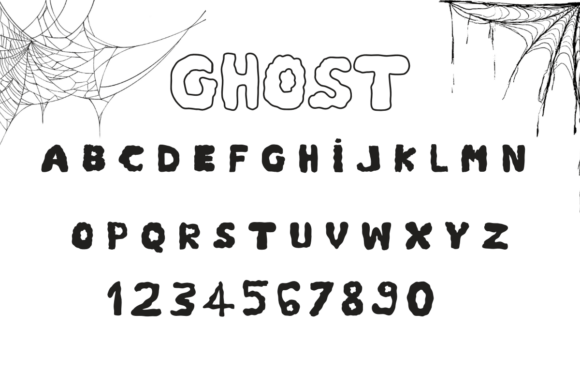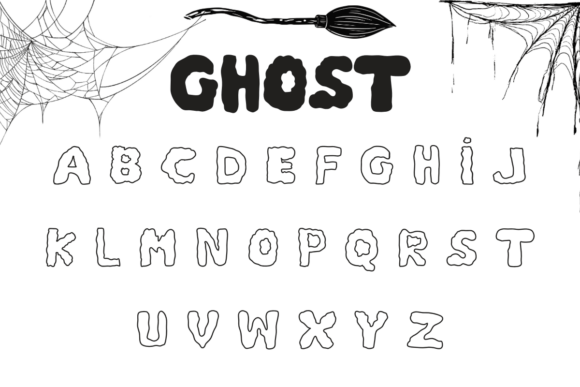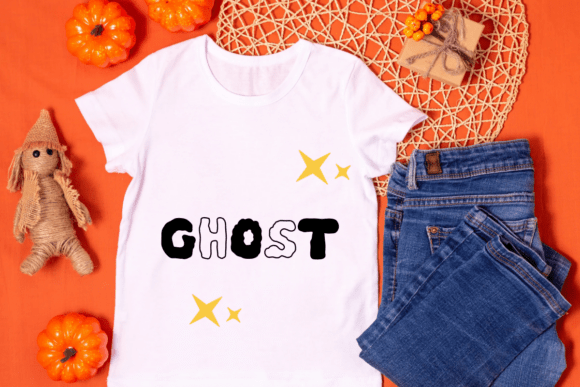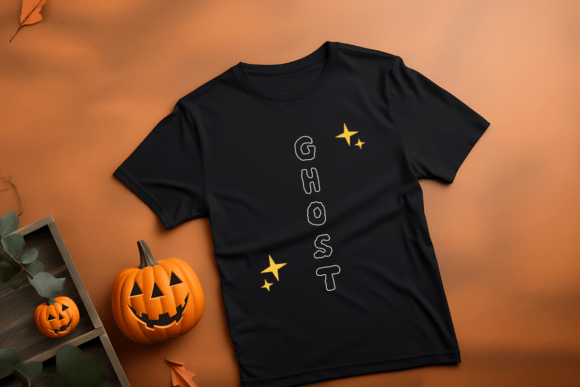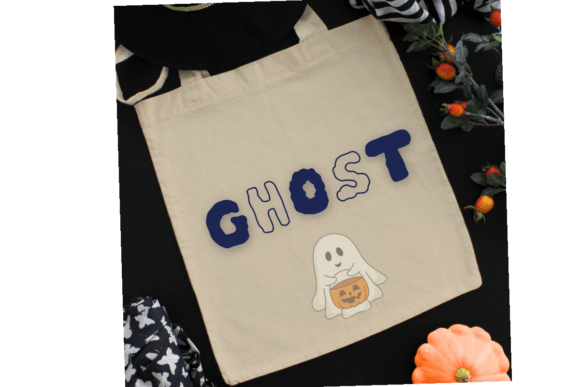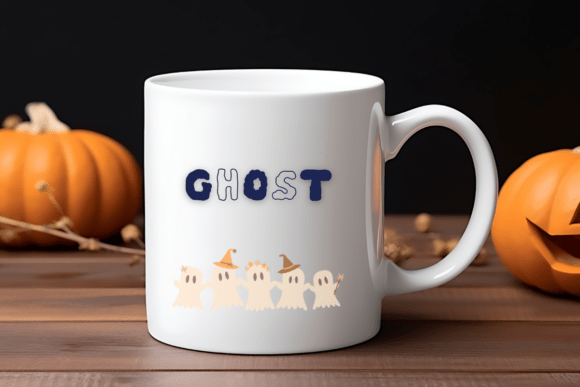
Introducing Ghost Font: The Perfect Playful and Spooky Decorative Font for Halloween
Are you a designer or crafter looking for a unique and eye-catching font to add a touch of spooky charm to your Halloween-themed designs? Look no further than Ghost Font! This playful and spooky decorative font is perfect for creating party invites, spooky crafts, treat bags, and seasonal merchandise that will delight both kids and adults alike.
The Characteristics of Ghost Font
Ghost Font boasts blobby, irregular shapes that give it a delightfully eerie and whimsical feel. Its subtle charm is sure to add a fun and haunting touch to your designs without being too scary or overwhelming. The font’s playful nature makes it an ideal choice for Halloween-themed designs that need to appeal to a wide range of audiences, including children.
What Makes Ghost Font So Versatile?
One of the best things about Ghost Font is its versatility. Its unique and quirky design makes it perfect for a wide range of applications, from party invitations and decorations to spooky crafts and seasonal merchandise. Whether you’re designing a haunted house invitation, a spooky treat bag, or a Halloween-themed t-shirt, Ghost Font is sure to add a touch of personality and whimsy to your design.
Why Choose Ghost Font for Your Halloween Designs?
So, why choose Ghost Font for your Halloween designs? Here are just a few reasons why this font stands out from the rest:
- Playful and Spooky: Ghost Font strikes the perfect balance between playful and spooky, making it ideal for Halloween-themed designs that need to appeal to a wide range of audiences.
- Unique and Quirky: The font’s blobby, irregular shapes give it a unique and quirky design that’s sure to stand out from the crowd.
- Easy to Read: Despite its playful nature, Ghost Font is still easy to read, making it perfect for designs that need to convey a message or tell a story.
- Versatile: Ghost Font can be used for a wide range of applications, from party invitations and decorations to spooky crafts and seasonal merchandise.
How to Use Ghost Font in Your Designs
Using Ghost Font in your designs is easy! Here are a few tips to get you started:
- Pair it with Other Fonts: Ghost Font pairs well with other fonts, such as bold sans-serif fonts or elegant script fonts. Experiment with different font combinations to find the perfect look for your design.
- Use it for Headlines: Ghost Font is perfect for headlines and titles, where its playful and spooky nature can really shine.
- Add Some Color: Ghost Font looks great in a variety of colors, from bright and bold to muted and pastel. Experiment with different colors to find the perfect look for your design.
- What is Ghost Font? Ghost Font is a playful and spooky decorative font perfect for Halloween-themed designs.
- What type of designs is Ghost Font best suited for? Ghost Font is perfect for party invites, spooky crafts, treat bags, and seasonal merchandise.
- Is Ghost Font easy to read? Yes, despite its playful nature, Ghost Font is still easy to read.